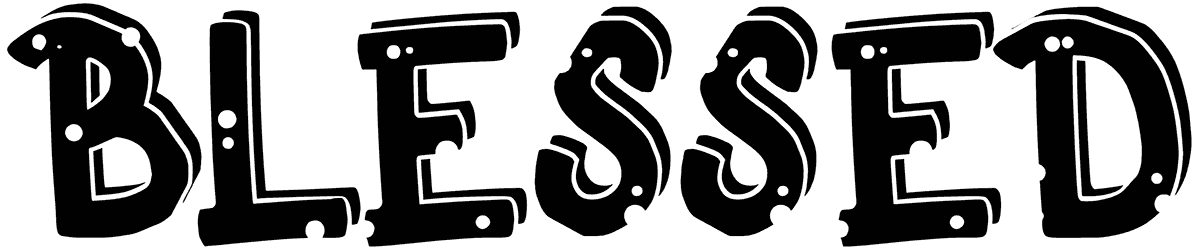
Blessed Font
Spice up your funny design with this cheese font and attract lots of viewers to your delicious design. The playful letters of this font can make your design of a fast food restaurant menu more attractive. The great news is Blessed font supports almost all characters, and you can set it for different projects as you want.